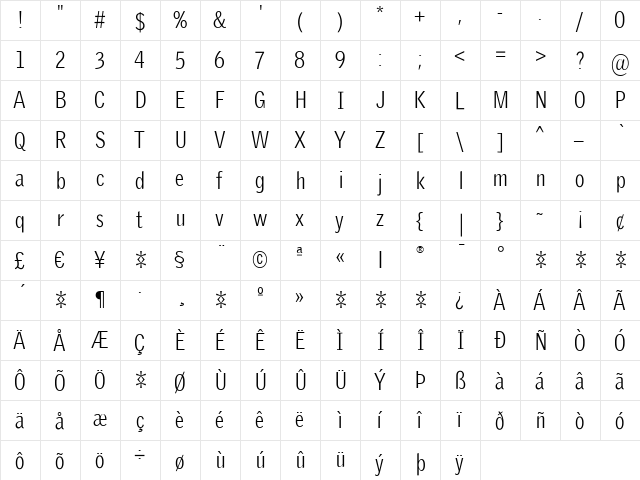
GriffithGothic Cond Light Regular Font Preview
Design Context for GriffithGothic Cond Light Typeface
GriffithGothic Cond Light takes a clean, functional approach — its unadorned letterforms prioritise legibility and work reliably across screen and print environments. The delicate stroke weight brings airiness and refinement to layouts. Its narrow stance lets it pack a punch even in space-constrained designs.
A natural fit for high-end product packaging, luxury brand identities, and refined web typography.
Font Pairing: Pair GriffithGothic Cond Light with a medium or bold serif for headlines — the weight contrast creates an elegant, high-end feel.
Pro Tip: Use GriffithGothic Cond Light tightly set in headlines and banners — its condensed proportions make it ideal for maximum impact in minimum horizontal space.